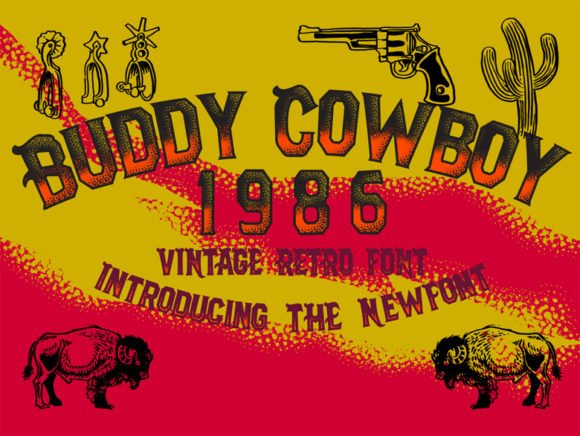
Get Ready to Ride into the World of Western Charm
Do you remember the thrill of creating something entirely new, with no idea where it will lead? For designers, this feeling is a familiar companion. It’s the spark that sets off a chain reaction of imagination and creativity. And sometimes, all it takes is the right font to ignite that spark. Enter the Buddy Cowboy 1986 Font – a bold display font that’s steeped in the authentic charm of American vintage.
With its rugged, yet refined aesthetic, the Buddy Cowboy 1986 Font is the perfect companion for any design project that needs a touch of the Wild West. Whether you’re crafting a poster, artwork, social media post, or logo, this font will add a layer of depth and character that’s hard to replicate with other fonts. As a designer, you know the value of having the right tools at your disposal – and the Buddy Cowboy 1986 Font is a valuable addition to any design arsenal.
Buddy Cowboy 1986 Font Key Features
- Font Family: Buddy Cowboy 1986
- Unique Characteristics: Distressed, vintage, and retro aesthetic with a strong emphasis on texture and imperfections
Buddy Cowboy 1986 Font Review
Initially, I was drawn to the retro vibe of the Buddy Cowboy 1986 Font. It has a certain charm that can be perfect for certain projects. ✨ The font does have a nice balance between its rough edges and a touch of playfulness, making it suitable for use in western-themed or nostalgic contexts.
Here are some of the font’s strengths:
- It’s great for creating a unique, vintage look.
- The font is quite versatile and can be used in various creative contexts.
- The characters are well-designed and easy to read.
However, there are some limitations to consider. ⚠️ The font’s rough texture may not be ideal for use in formal or professional settings. Additionally, the font’s limited character set may make it difficult to use in situations where a wide range of characters are required.
Overall, I think the Buddy Cowboy 1986 Font is a fun and creative choice for designers who want to add a touch of nostalgia to their work. While it may not be suitable for all projects, it can be a great option for those looking to create a unique and eye-catching design.
Tips for Getting the Most Out of the Buddy Cowboy 1986 Font
The Buddy Cowboy 1986 Font is a unique, distressed font that works well for vintage-themed designs. To get the most out of it, use it for:
- Vintage-themed posters and advertisements.
- Retro-style logos and branding.
- Western-themed designs and graphics.
The Buddy Cowboy 1986 Font is commonly used for:
- Vintage-inspired designs.
- Retro-themed graphics.
- Western-themed branding and advertising.
Copperplate is a classic calligraphy font that resembles handwritten text. It’s ideal for creating elegant, sophisticated designs such as invitations, wedding cards, and high-end packaging. Copperplate has a more refined and polished look compared to Buddy Cowboy 1986, making it suitable for formal events and luxury brands.
Playfair Display is an elegant script font that adds a touch of luxury to designs. It’s perfect for creating attention-grabbing headlines, titles, and logos for high-end fashion brands, jewelry, and other premium products. Playfair Display has a more ornate and sophisticated look compared to Buddy Cowboy 1986, making it ideal for creating a sense of opulence and sophistication.
Great Vibes is a modern script font that’s perfect for creating a relaxed, casual atmosphere in designs. It’s ideal for creating titles, headings, and logos for music festivals, outdoor events, and laid-back brands. Great Vibes has a more casual and playful look compared to Buddy Cowboy 1986, making it suitable for creating a fun and carefree vibe.
Rockwell is a classic serif font that’s perfect for creating a strong, confident look in designs. It’s ideal for creating titles, headings, and logos for rugged, outdoor brands, construction companies, and other industries that require a sense of strength and durability. Rockwell has a more rugged and industrial look compared to Buddy Cowboy 1986, making it suitable for creating a bold and masculine image.